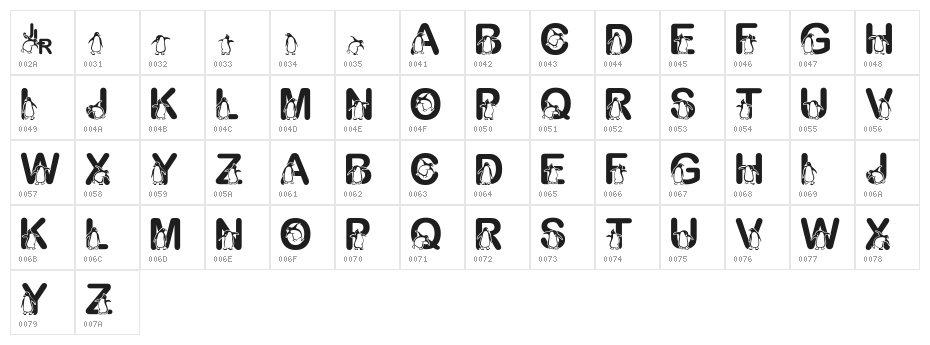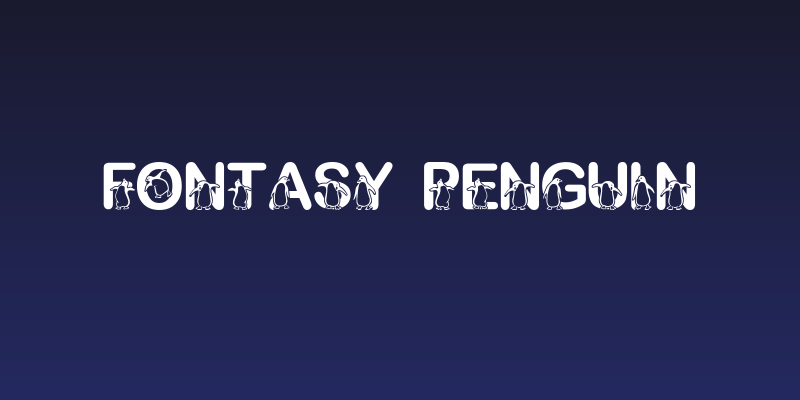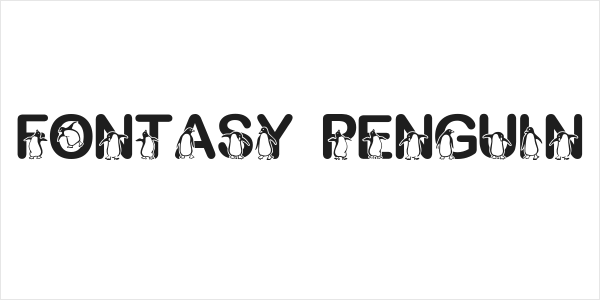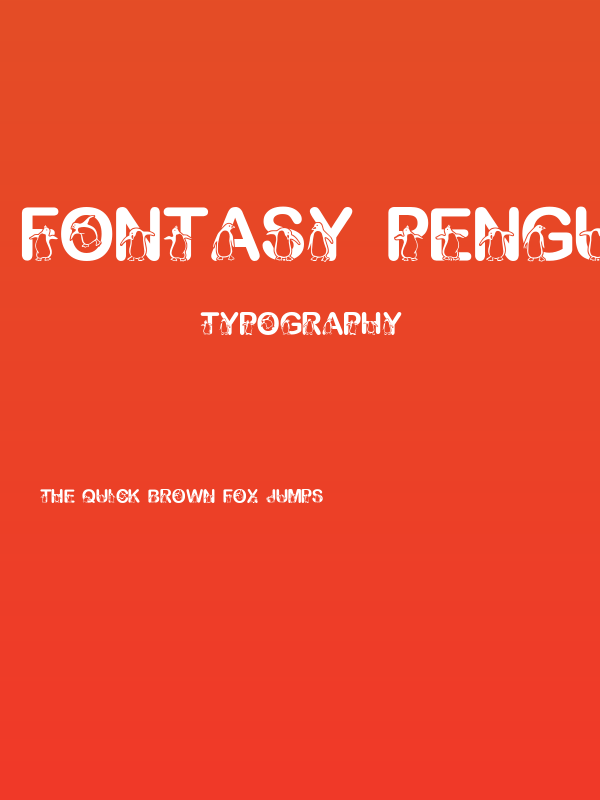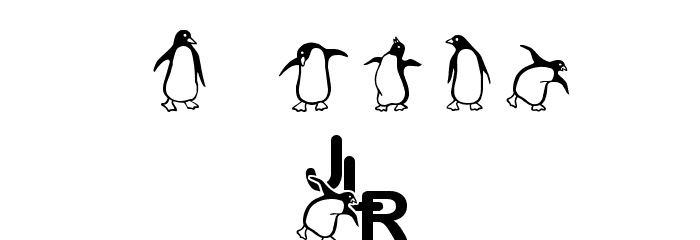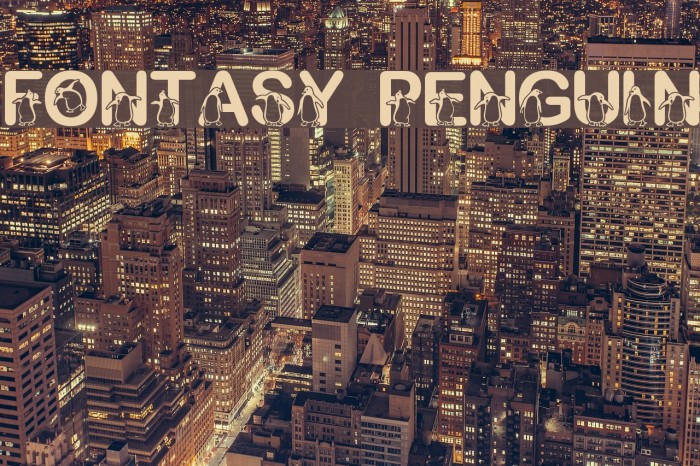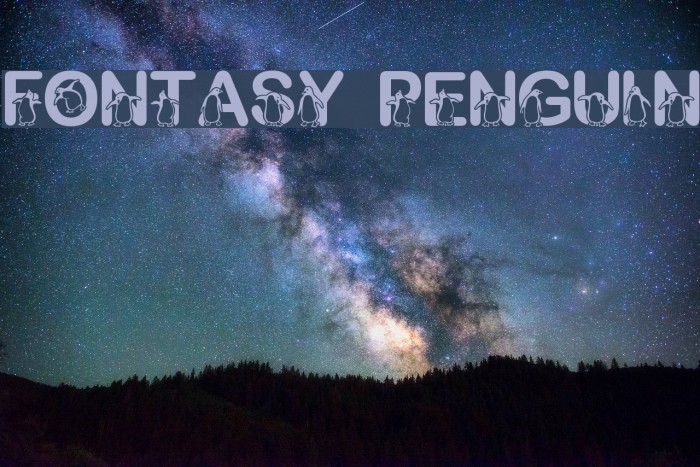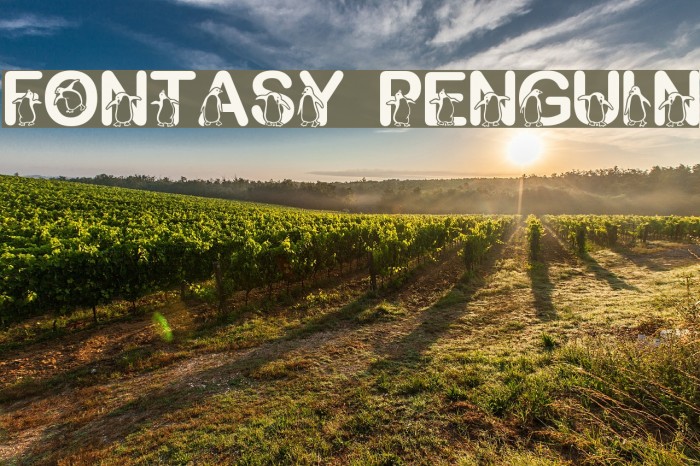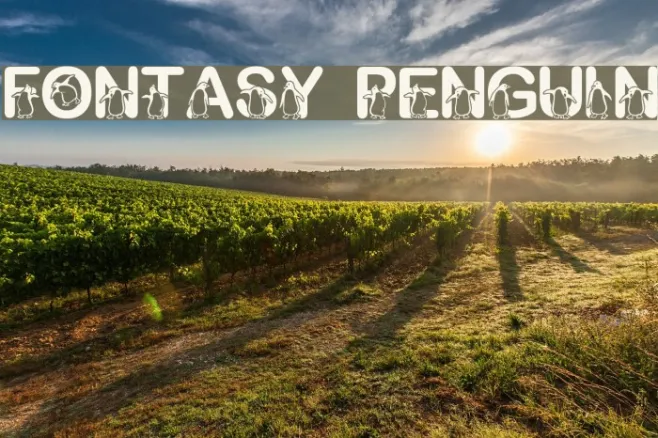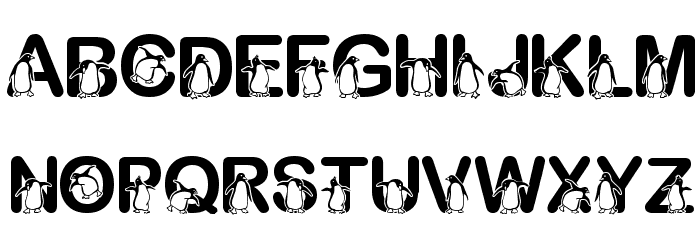
Fontasy Penguin Font
Fontasy Penguin Description
This playful and whimsical font features bold, rounded letters with adorable penguin illustrations integrated into each character. The penguins are cleverly positioned to interact with the letters, adding a unique and charming touch. The font maintains a consistent thickness throughout, providing a cohesive look. It's perfect for projects that require a fun and lighthearted aesthetic, such as children's books, playful branding, or festive invitations. The combination of bold lettering and cute penguin graphics makes it stand out, ensuring it captures attention while conveying a sense of joy and creativity.
| Proposed Projects | Ideal for children's books, playful branding, festive invitations, and creative designs. |